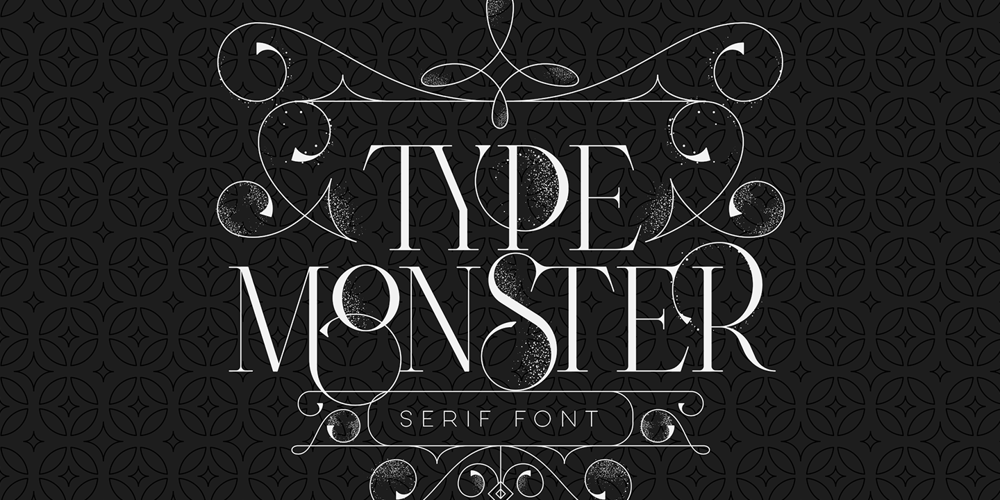
Type Monster Font Family was designed by Vladimir Fedotov, Plamen Petrov and published by VP Creative Shop. Type Monster contains 5 styles and family package options. “Type Monster” is a sophisticated serif font that offers a versatile blend of classic style and modern artistry, making it an excellent choice for a wide range of design projects. This typeface is meticulously crafted with 114 ligature glyphs that offer a seamless connection between letters, adding an elegant and custom-made feel to any text.The font is equipped with alternate characters, providing designers with the flexibility to choose the perfect style for each application, whether for branding, editorial design, or invitations. With support for 87 languages, “Type Monster” is incredibly accessible and user-friendly, catering to a global audience.